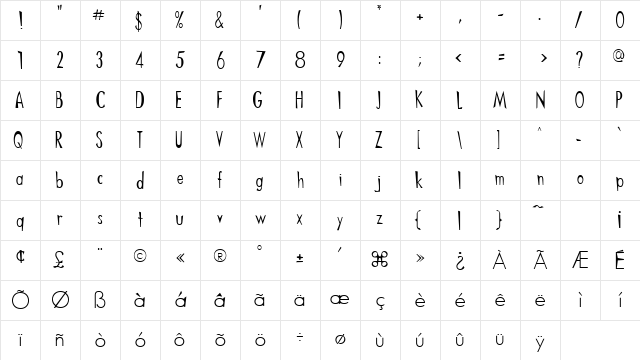
ChineMen Regular
Complete ChineMen Regular glyph index. Displaying only characters natively supported by ChineMen Regular font.
Design Context for ChineMen
ChineMen is a composed and adaptable typeface that performs quietly and consistently across a wide range of design contexts.
Pro Tip: Use ChineMen in both headline and body roles to test its range before committing to a single application.